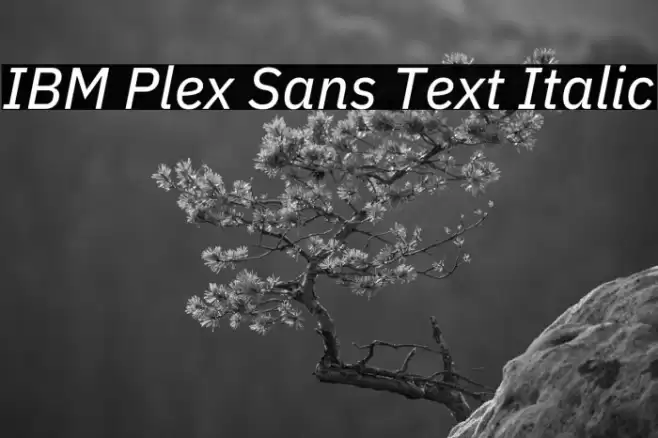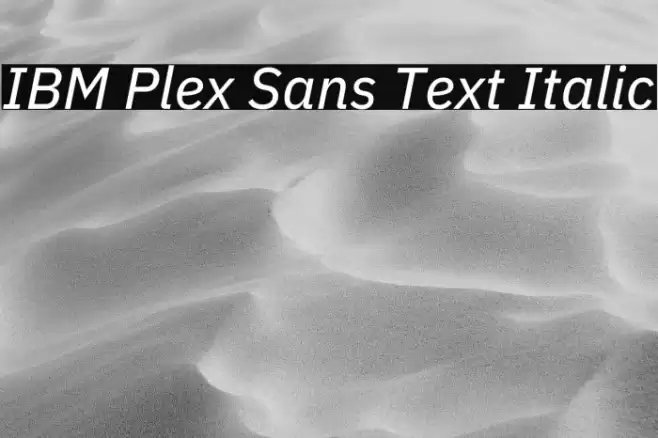
IBM Plex Sans Text Italic Font
IBM Plex Sans Text Italic Description
This font features a clean and modern sans-serif design with a slight italic slant, giving it a dynamic and forward-leaning appearance. The characters are well-proportioned with a consistent stroke width, providing a harmonious and balanced look. The uppercase letters are bold and assertive, while the lowercase letters maintain a friendly and approachable feel. The numerals are clear and easy to read, making them suitable for both text and numerical data. Special characters are distinct and well-integrated into the overall design, ensuring versatility across various applications.
A modern, italic sans-serif font with clean lines and balanced proportions from Sans Serif fonts.
- Proposed Projects: Ideal for digital interfaces, corporate branding, editorial design, and user-friendly web content.